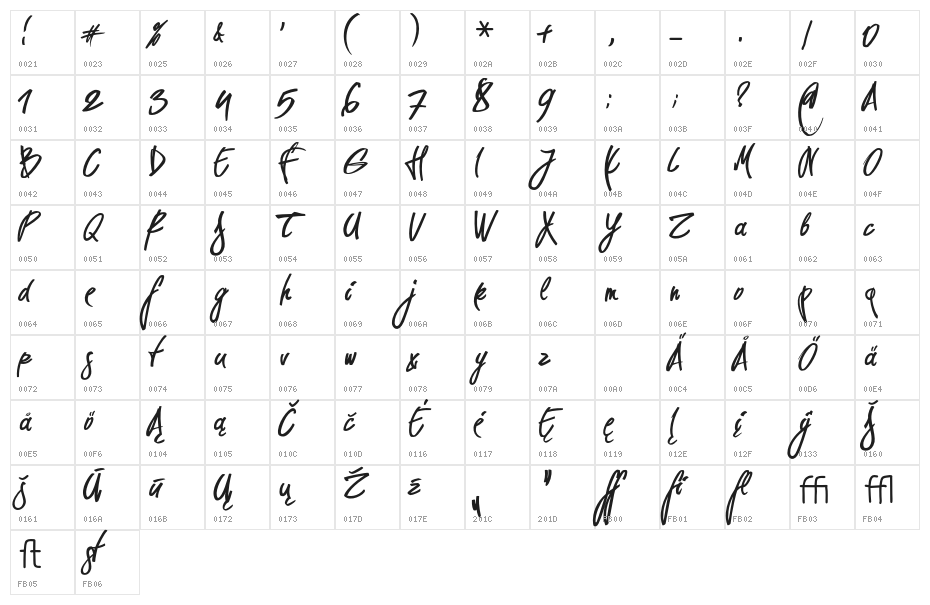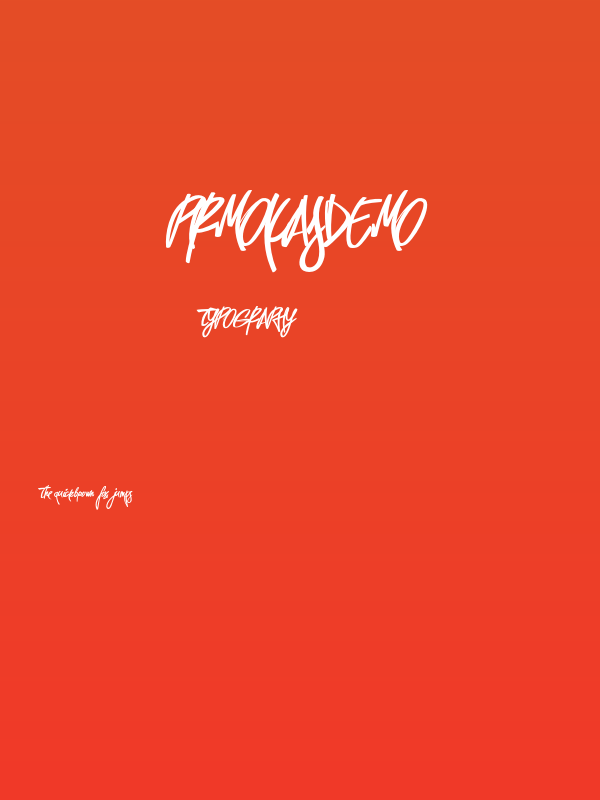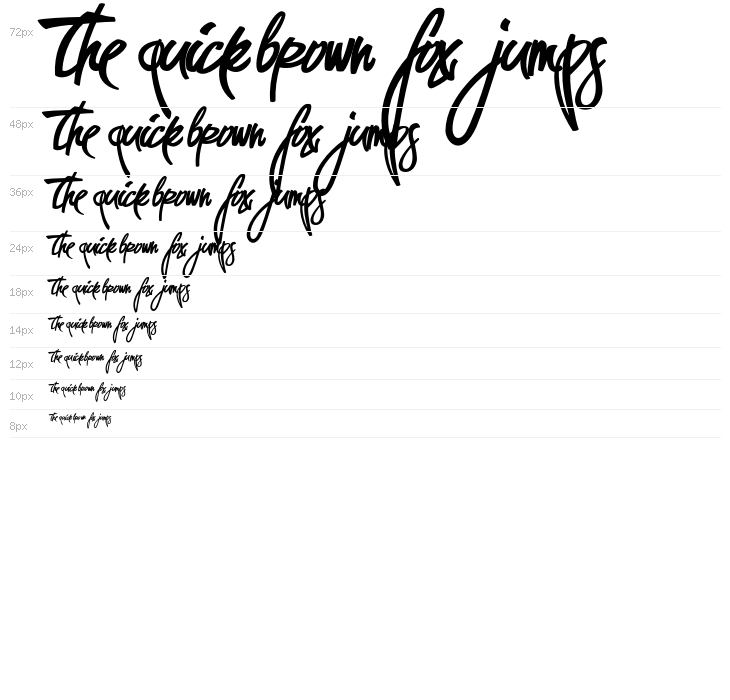
Pirmokasdemo Font
Pirmokasdemo Description
This font exudes a dynamic and energetic vibe with its bold, handwritten style. The letters are crafted with a fluid motion, giving an impression of speed and spontaneity. The uppercase and lowercase characters maintain a consistent flow, while the numbers and special characters integrate seamlessly into the overall design. The strokes are thick and expressive, adding a sense of urgency and creativity. This font is perfect for projects that require a personal touch or a sense of movement and excitement.
| Overall Style | Modern, Energetic |
| Proposed Projects | Ideal for graffiti art, event posters, music album covers, and dynamic branding projects. |